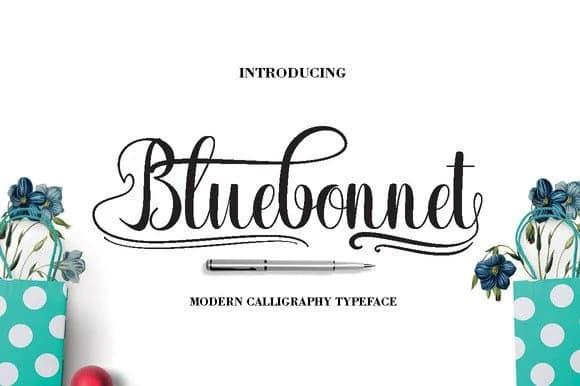
About Bluebonnet Font
Bluebonnet Font by Danti is a hand-lettered script that delivers organic warmth and authentic character to creative work across multiple design disciplines. The naturally flowing letterforms capture the genuine appeal of handwritten typography while maintaining clean legibility and visual refinement that serves both formal and casual applications. This typeface excels in wedding invitation suites, where its graceful curves and distinctive character convey personal elegance and thoughtful design attention. Designers frequently choose Bluebonnet for handmade greeting card designs that need a human touch, boutique product labeling that stands out on retailer shelves, and custom craft signage for small businesses and makers. The script's flowing personality equally strengthens social media branding content and inspirational quote graphics that benefit from intimate, personal letterforms. The font's smooth curves and consistent construction perform beautifully across both digital and print applications, from social media graphics to physical packaging artwork. Its versatility enables designers to work fluidly across projects, supporting everything from formal branding campaigns to everyday DIY crafting, custom apparel embellishment, and vinyl cut designs for home decor and personalization projects. The letterforms maintain clarity and charm whether scaled small for labels or large for display purposes. Start crafting with intention by adding Bluebonnet Font to your collection on Creative Fabrica.
- Elegant, Flowing, Bluebonnet
Bluebonnet Font is a script font that shines as a display or heading face. Pair it with a clean sans-serif or serif font for body text β the contrast creates a clear hierarchy while the two styles stay balanced and easy to read.
Bluebonnet Font
by Danti